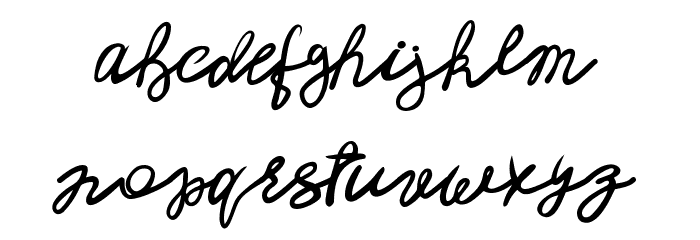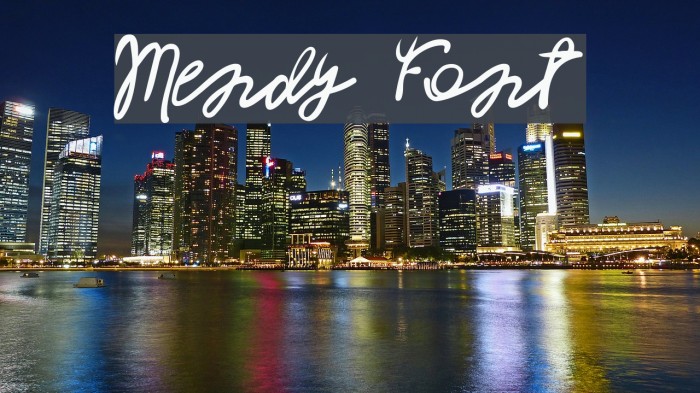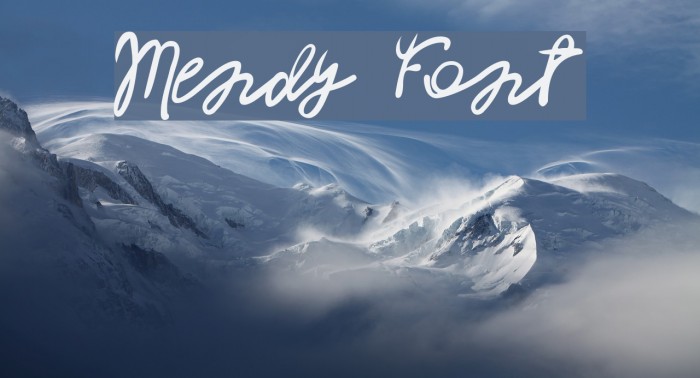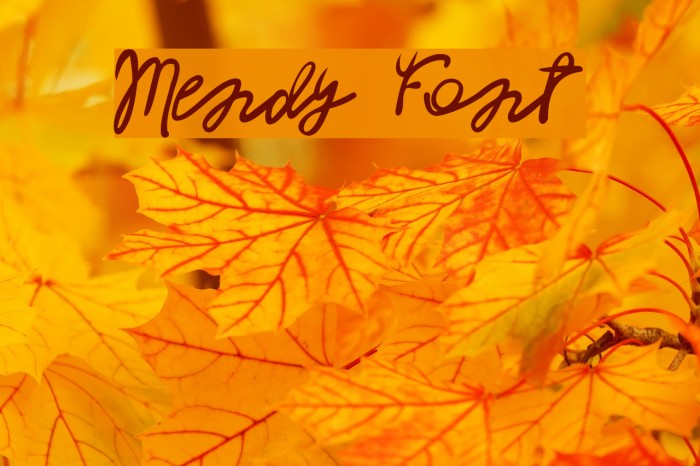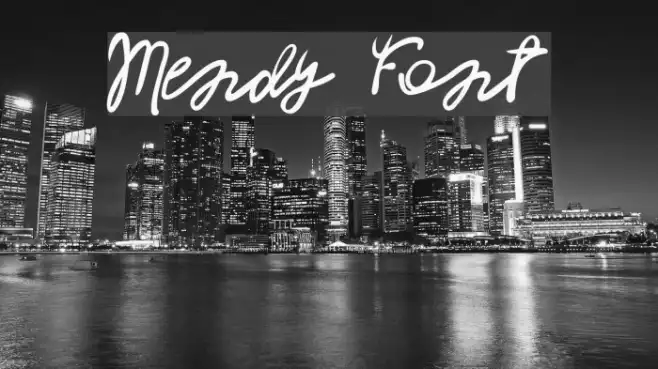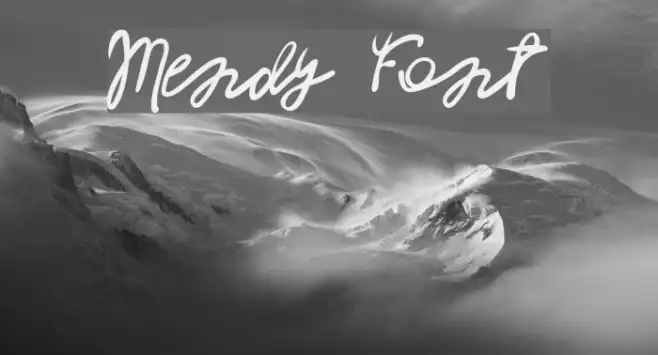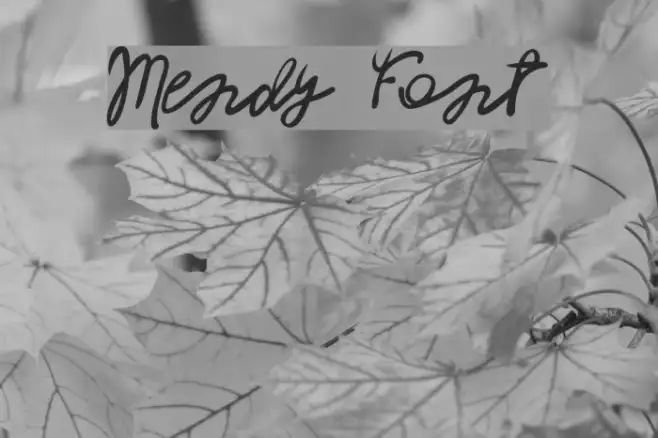
Mendy Font
This font exudes a lively and expressive character with its fluid, cursive style. The letters are interconnected, creating a seamless flow that mimics natural handwriting. The strokes are varied in thickness, adding a dynamic and artistic touch to the overall appearance. This font is perfect for projects that require a personal and creative flair, such as invitations, greeting cards, or artistic branding. Its playful yet elegant design makes it suitable for both formal and informal contexts, providing versatility in its application.
A lively, cursive font with fluid, interconnected strokes.
- Proposed Projects: Ideal for invitations, greeting cards, artistic branding, and personal projects.
- Use Case: Logos, Headlines, Artistic projects